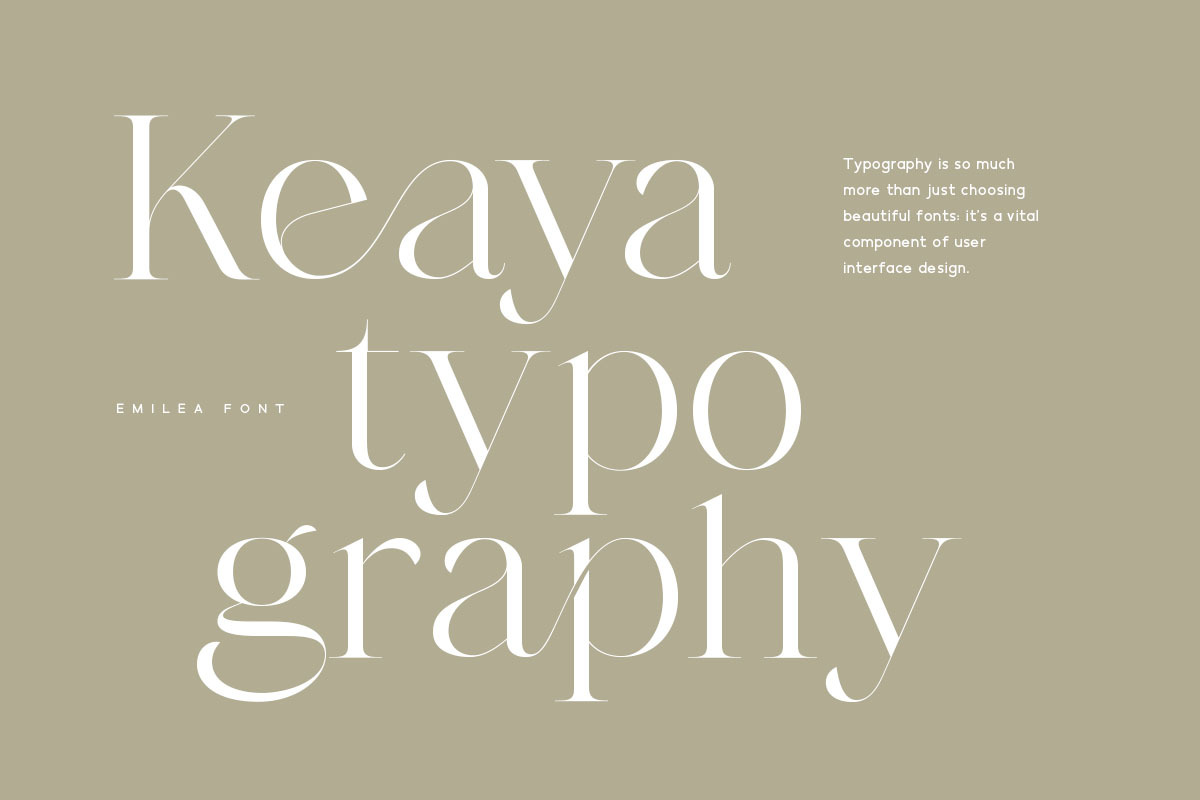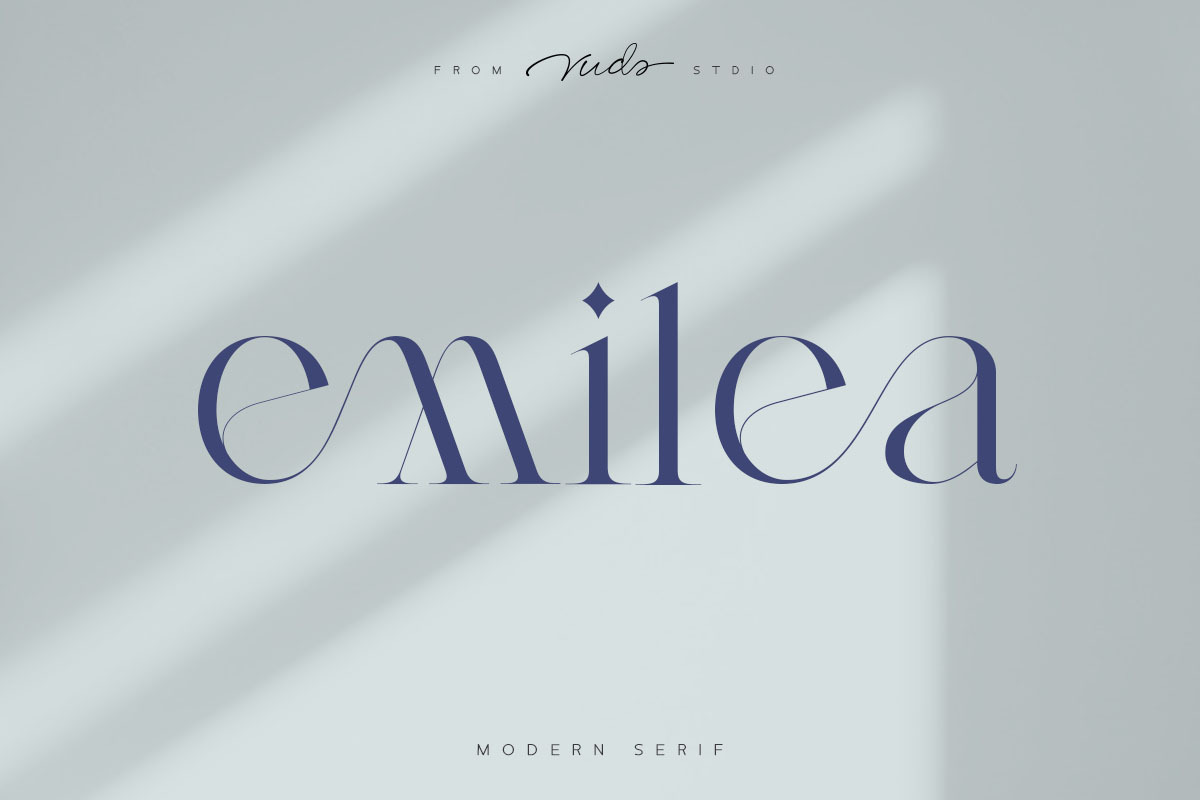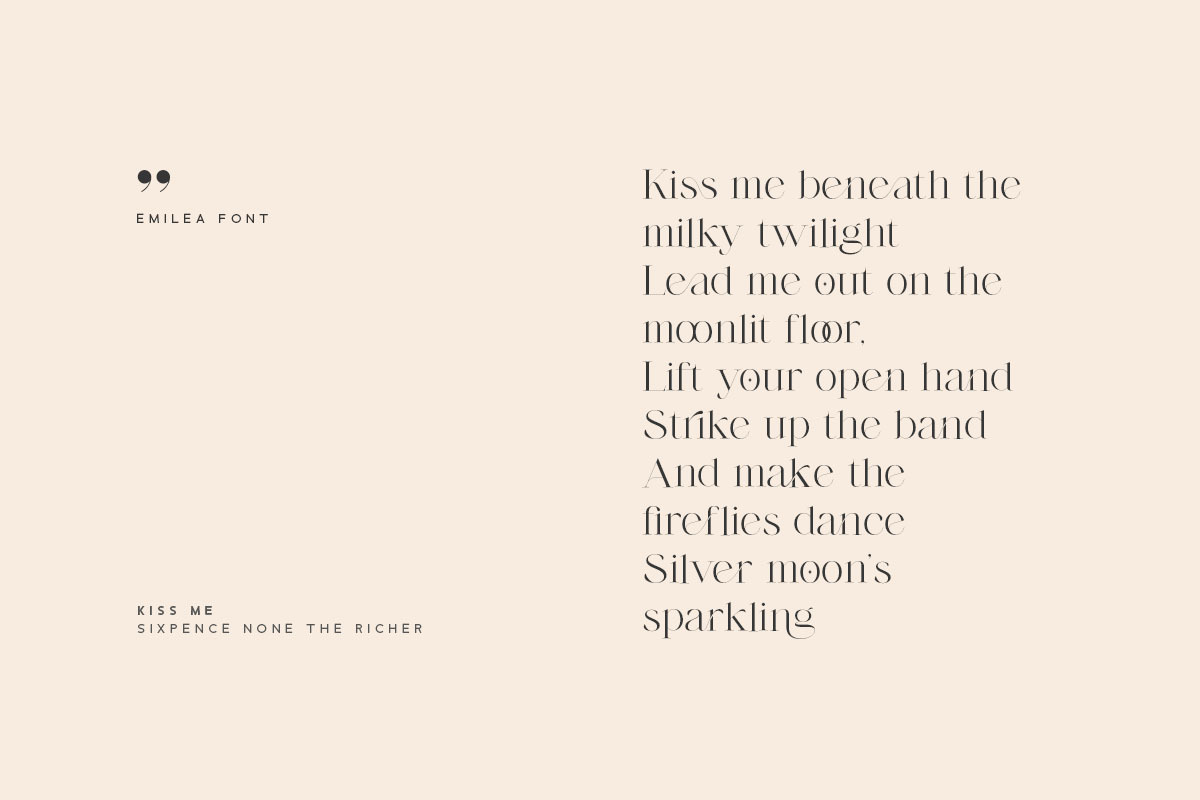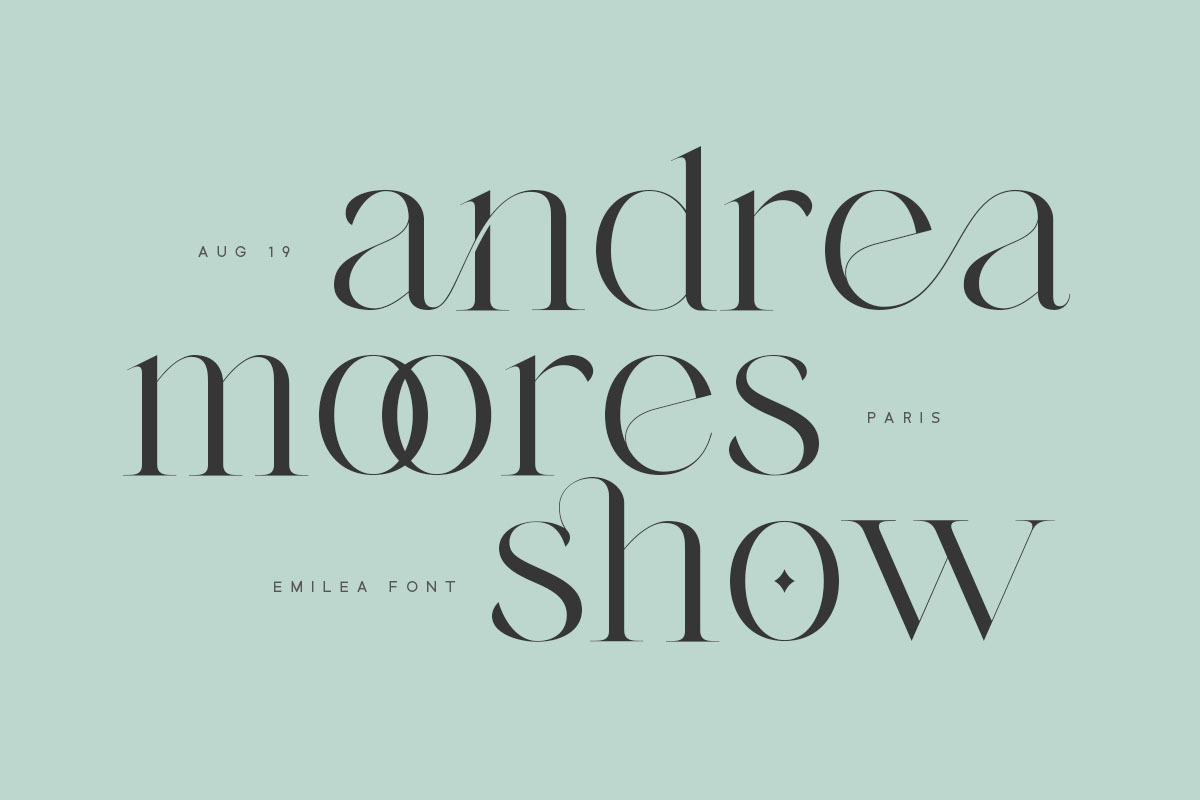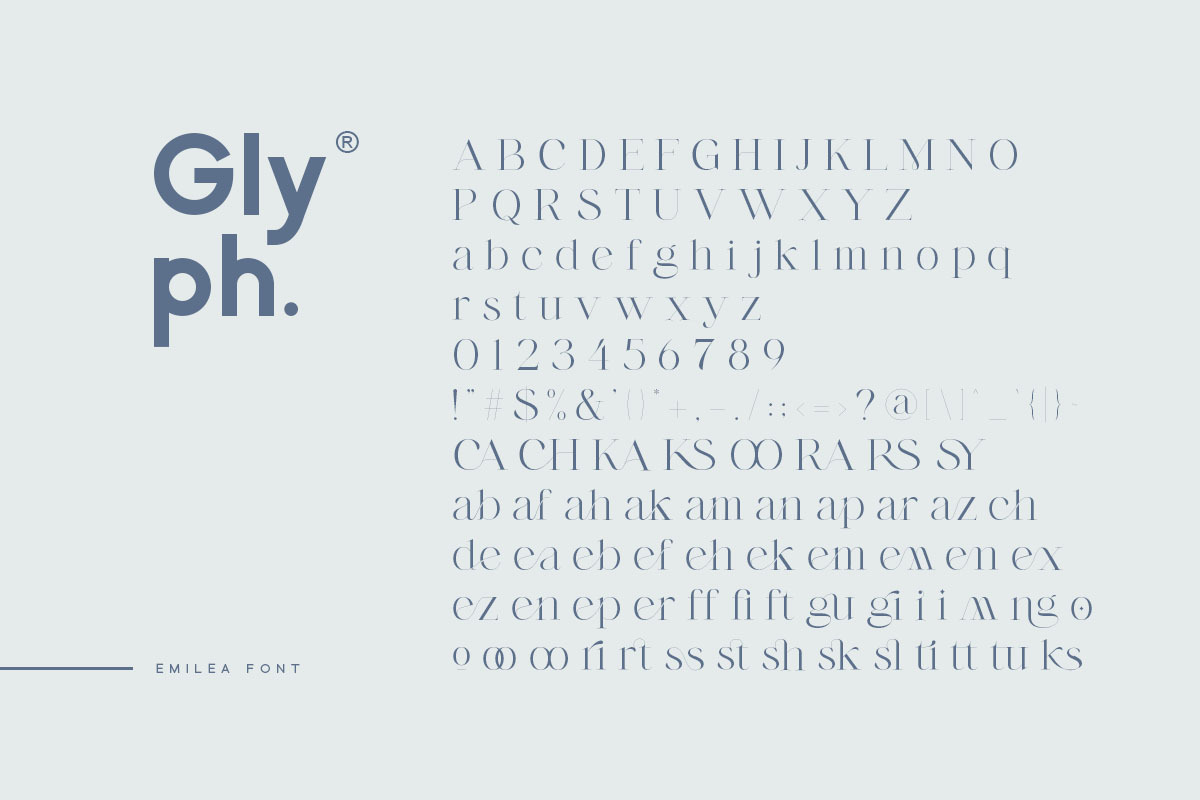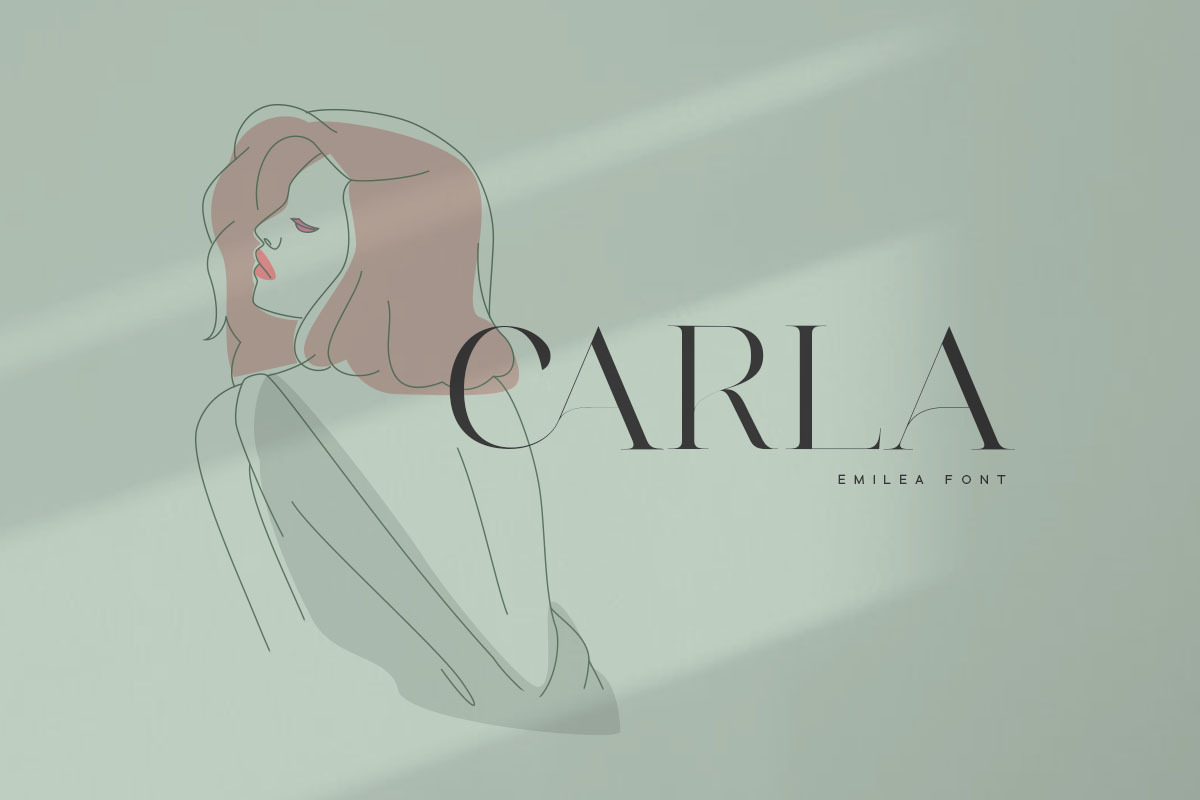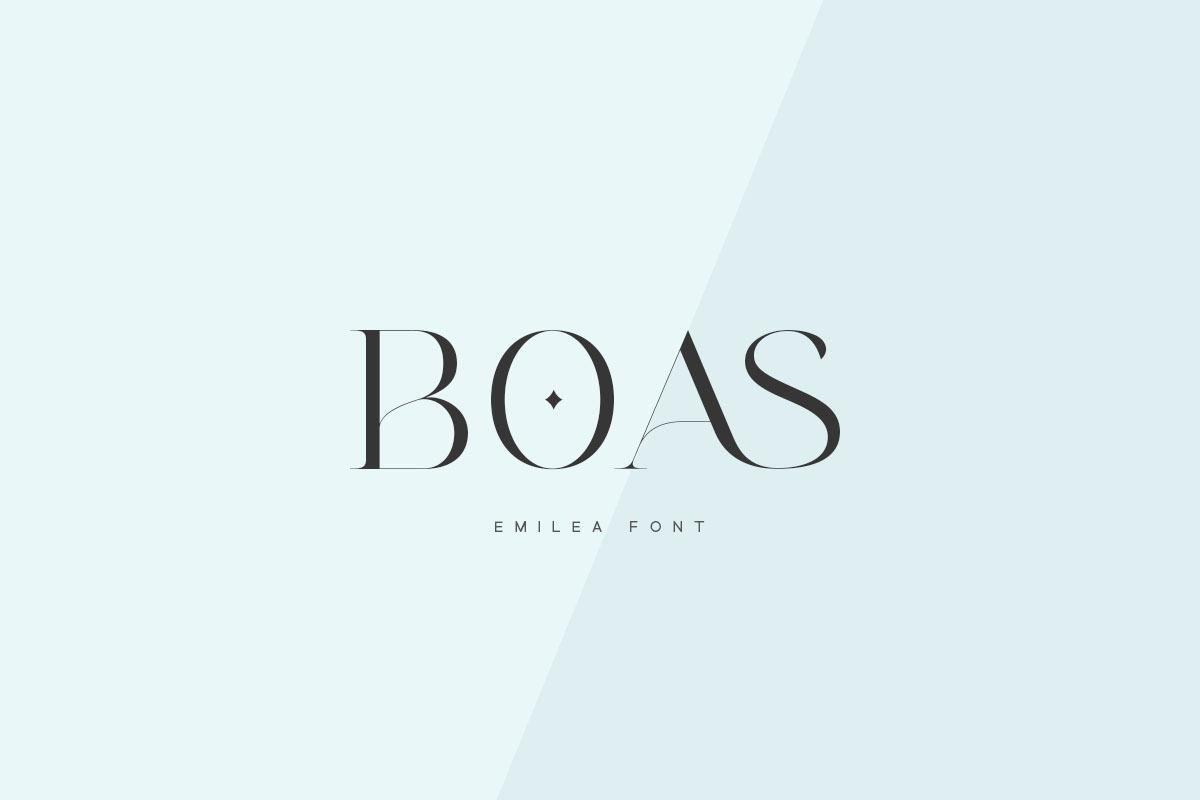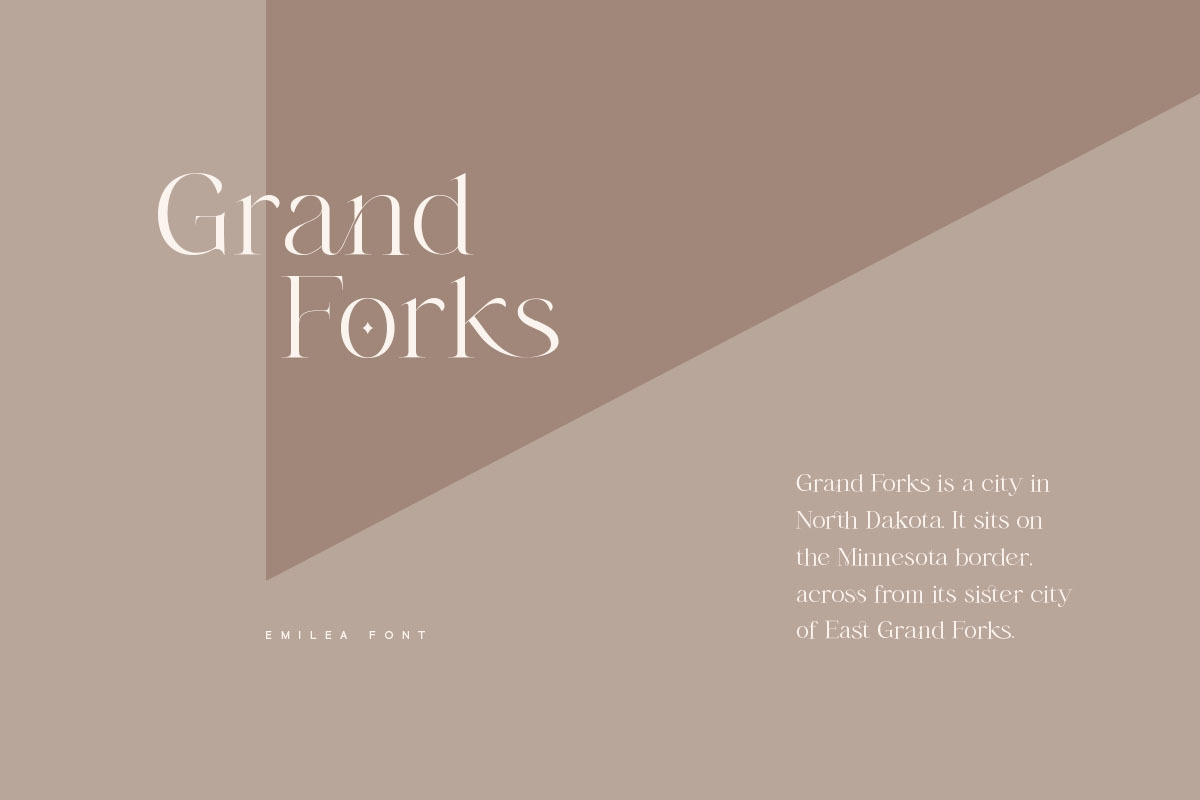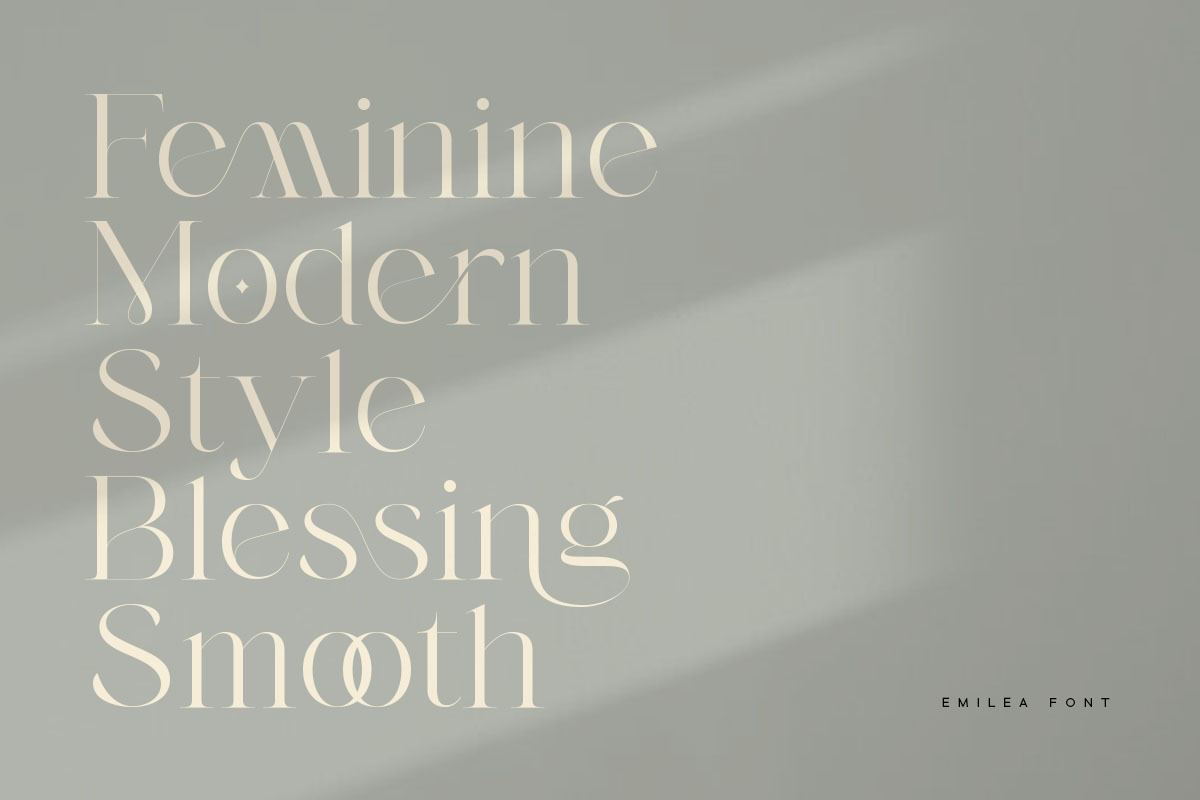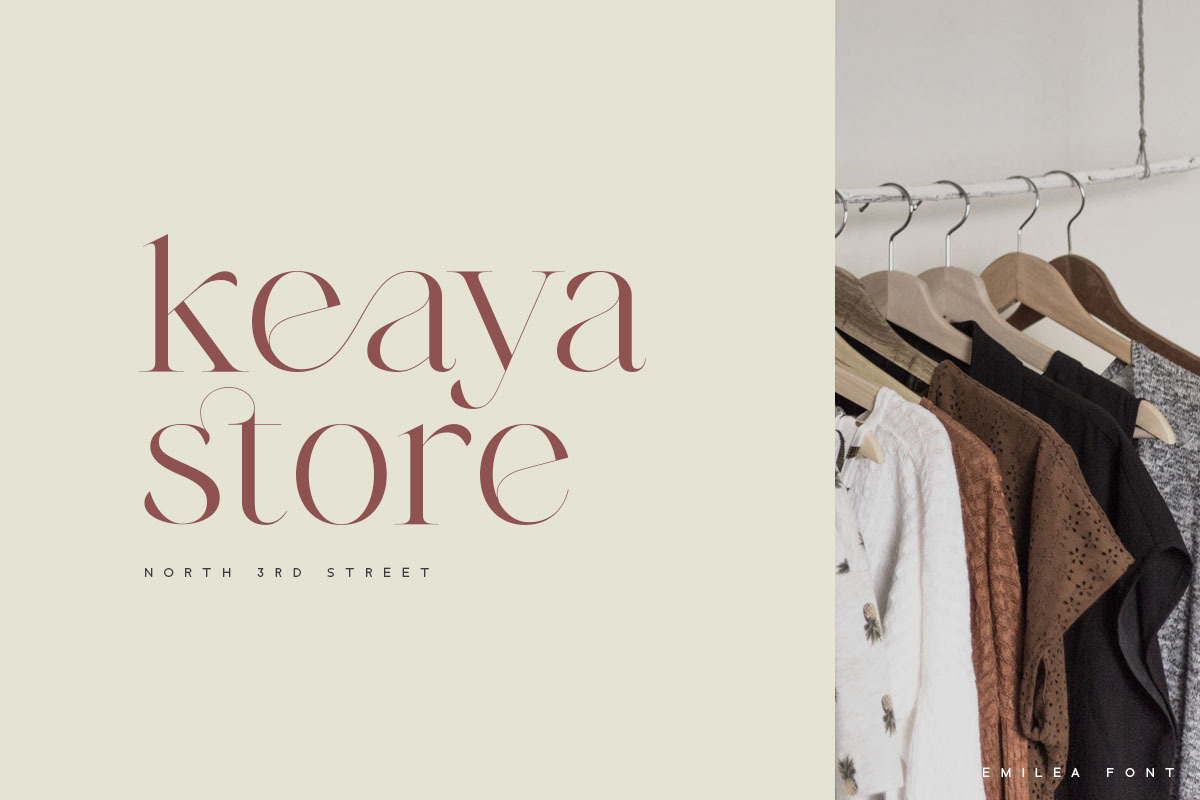
Emilea Font
Introducing Emilea Serif Font!
Emilea is modern serif font, every single letters have been carefully crafted to make your text looks unique.
Foreign languages support: ÀÁÂÃÄÅÆÇÈÉÊËÌÍÎÏÐÑÒÓÔÕÖØÙÚÛÜÝàáâãäåæçèéêëìíîïðñòóôõöøùúûüýÿ